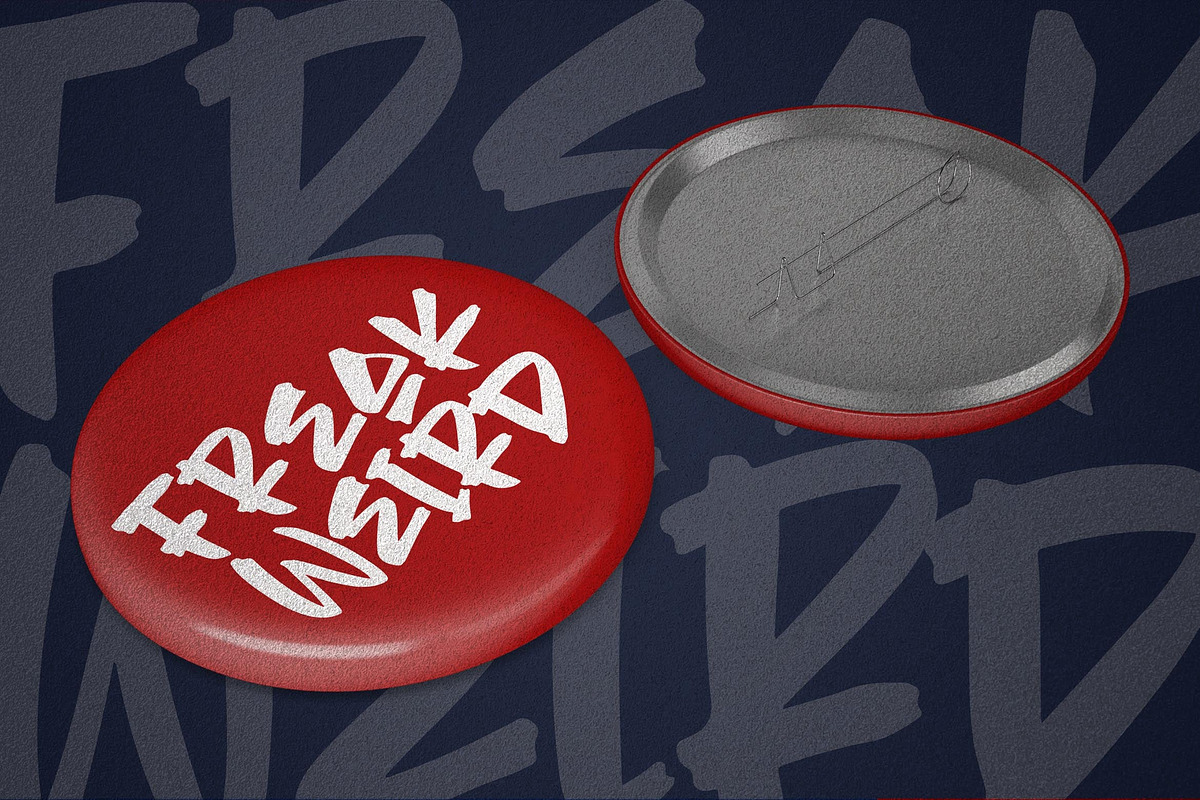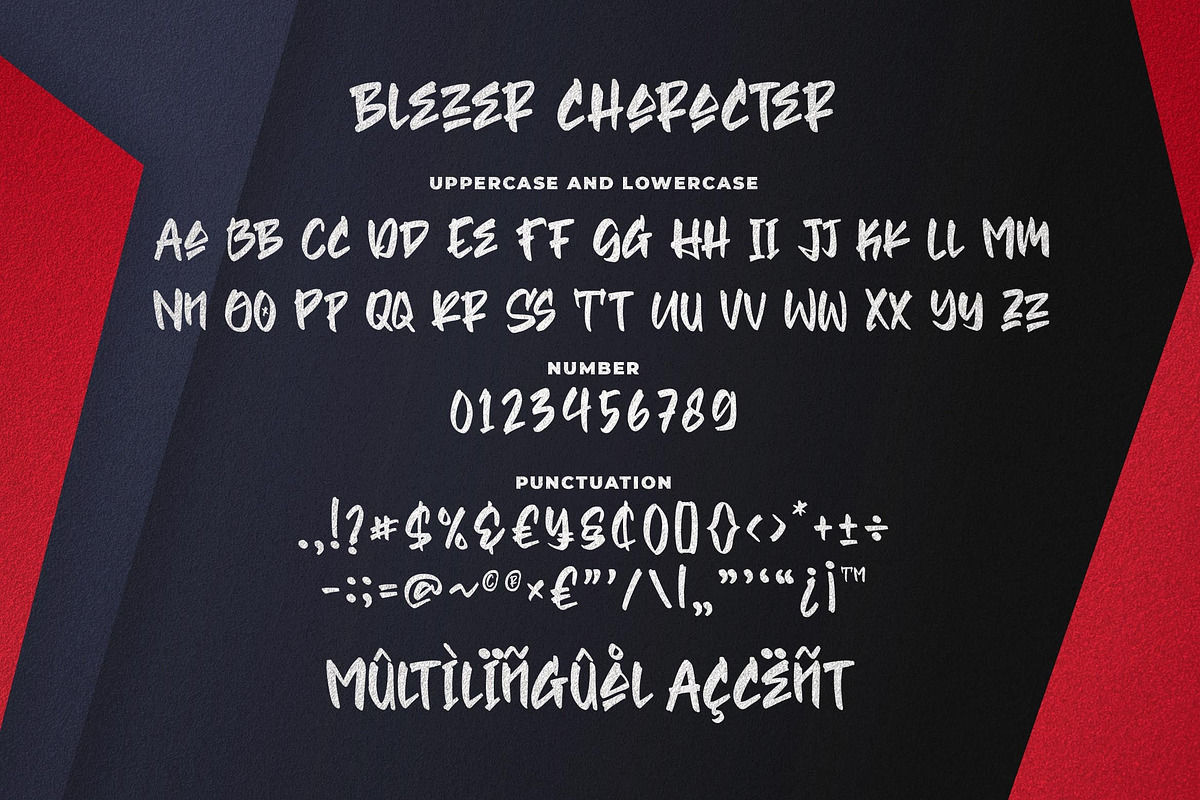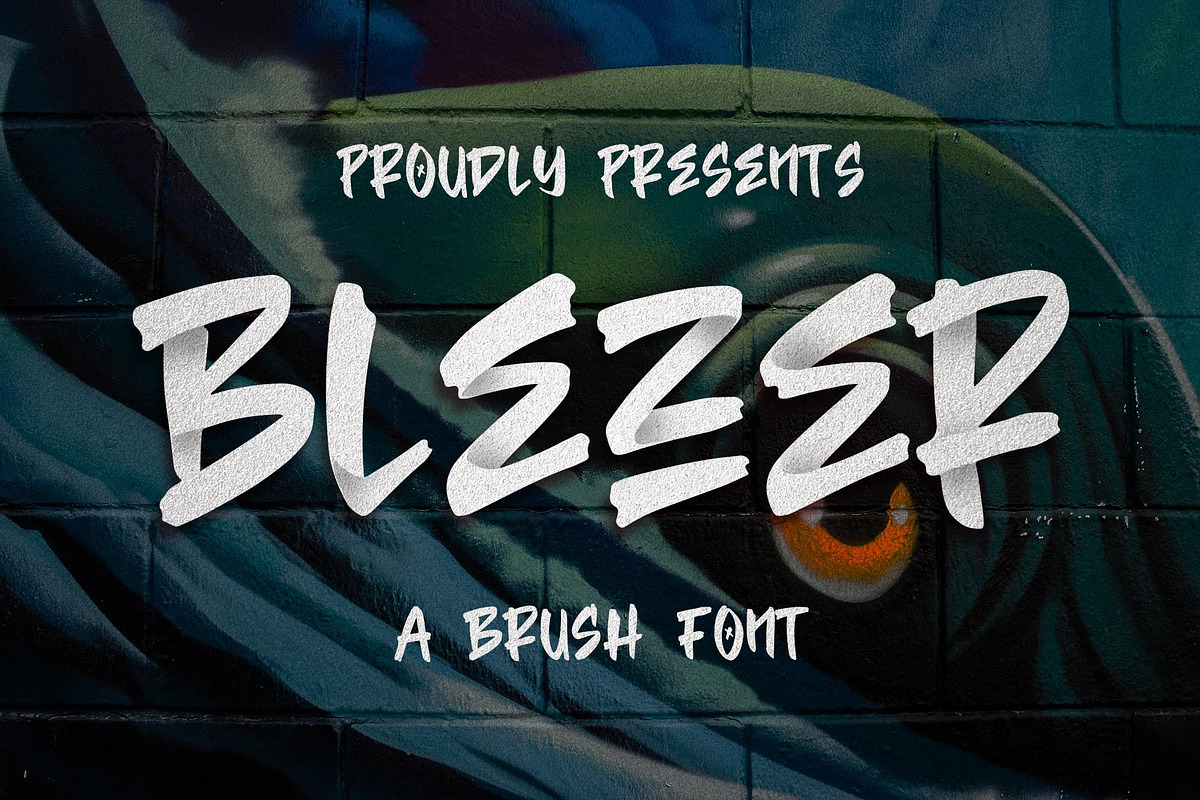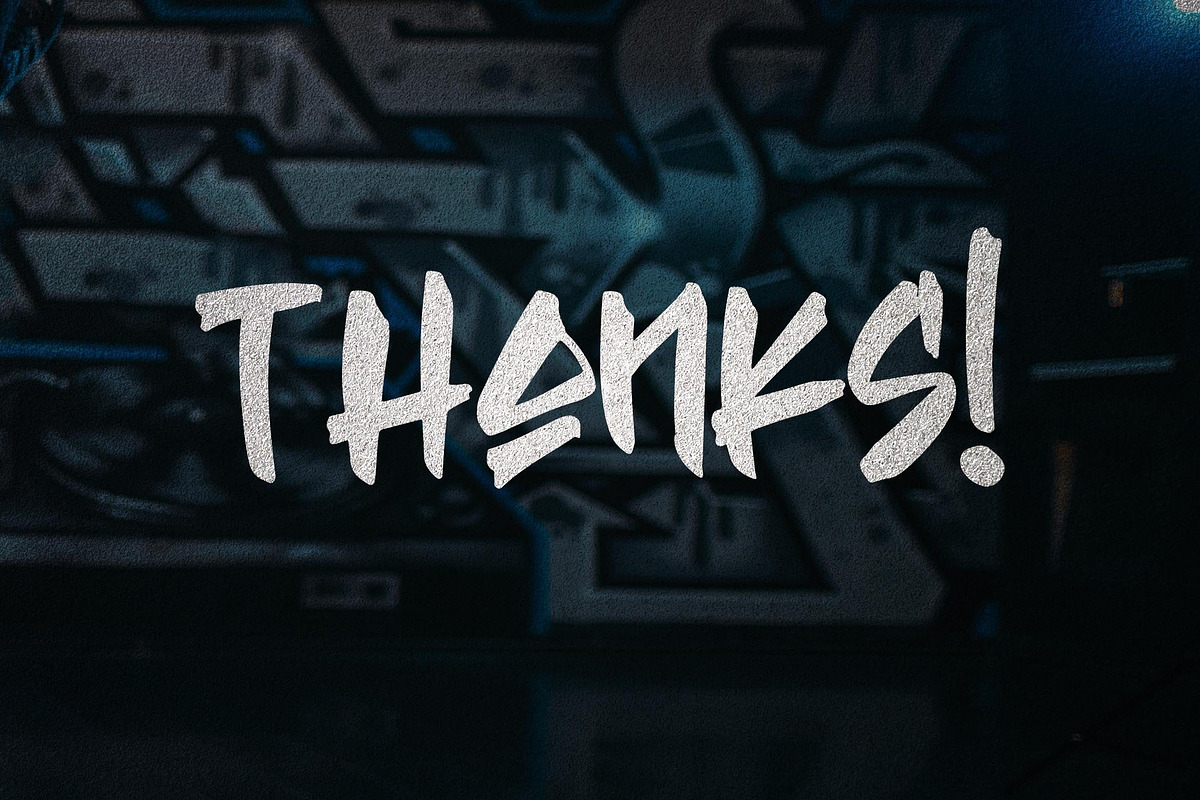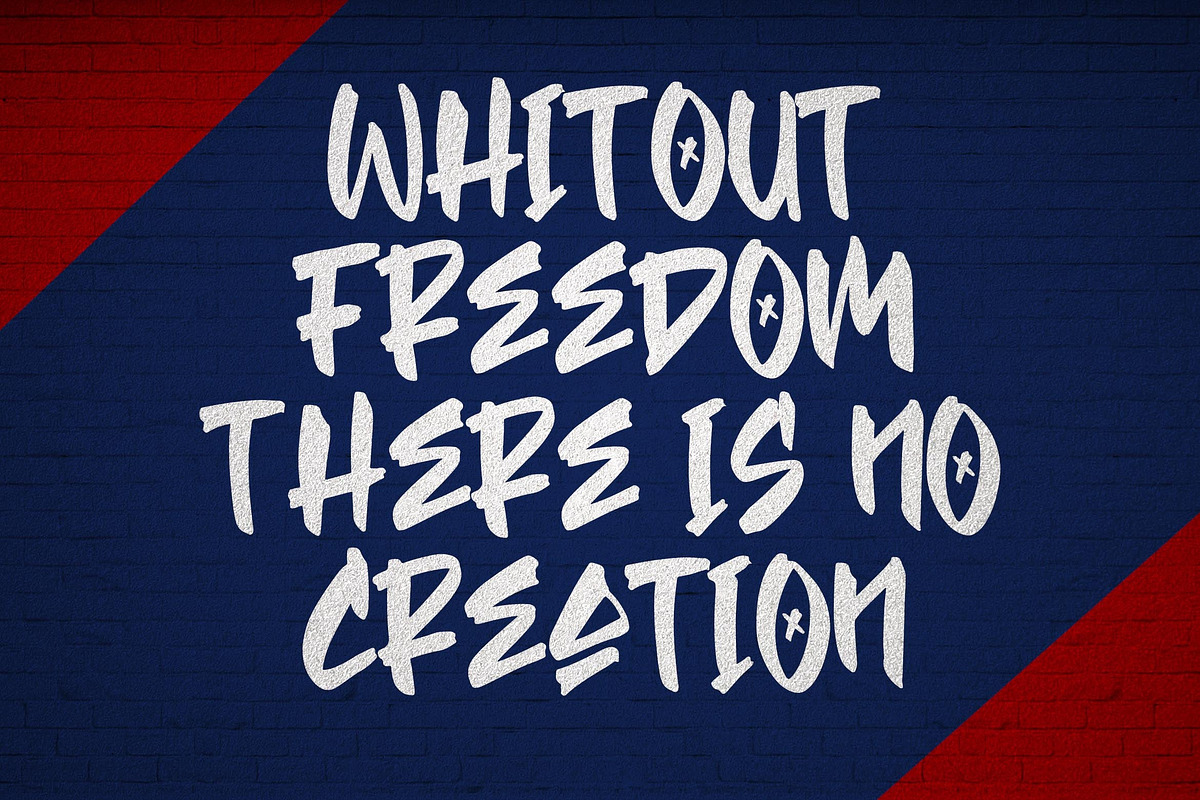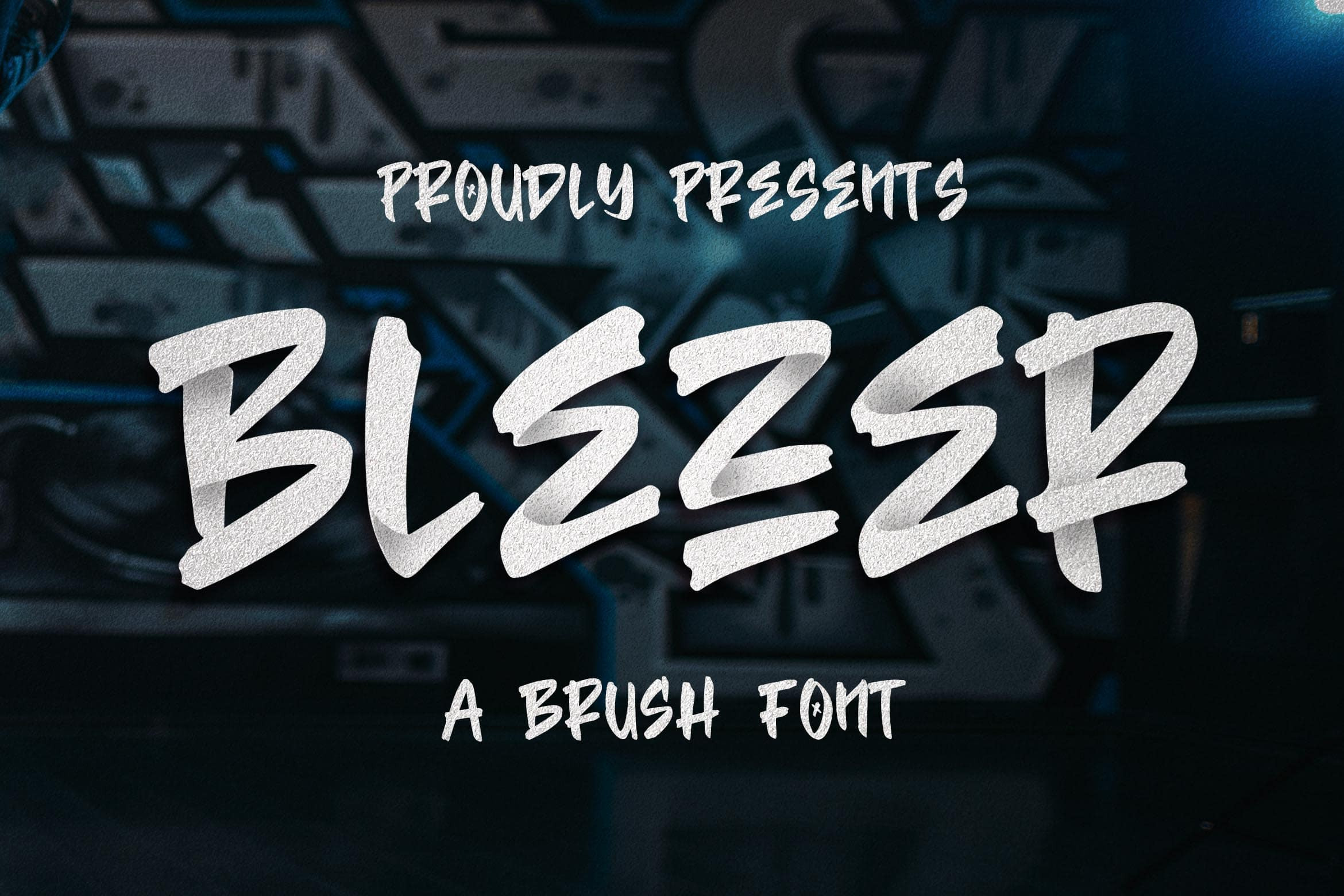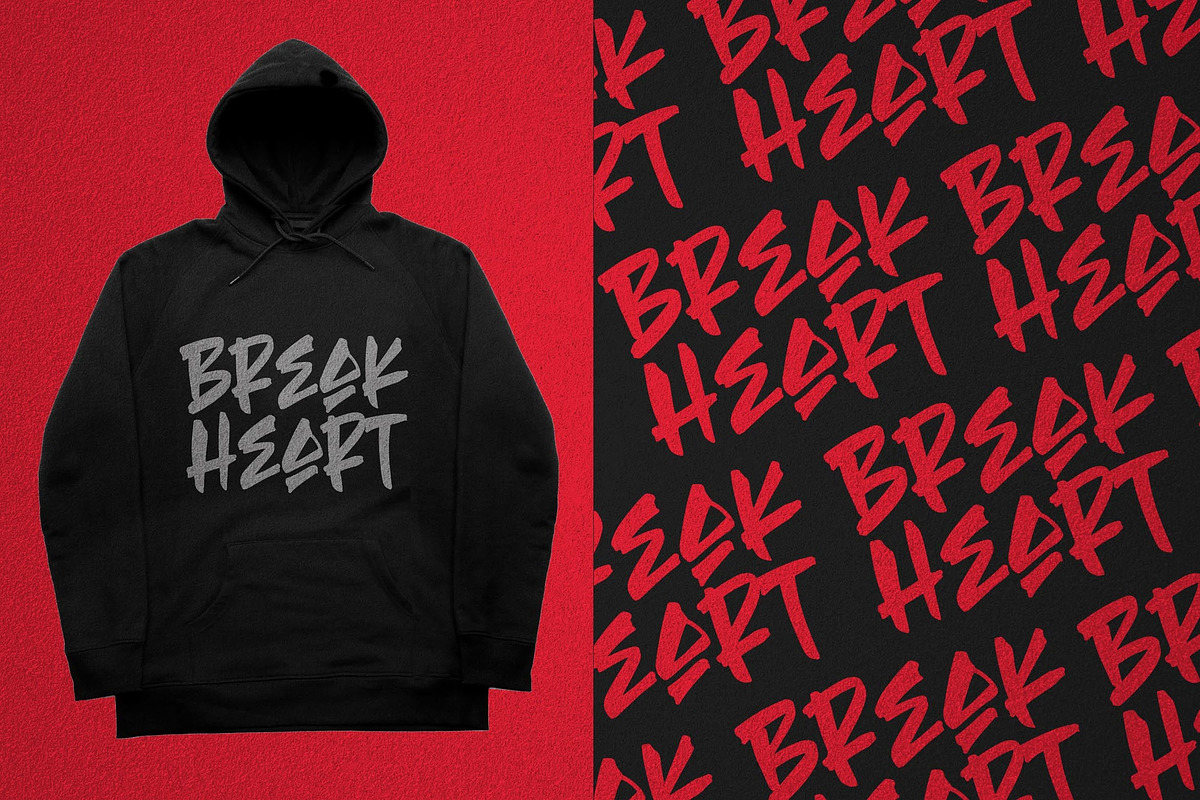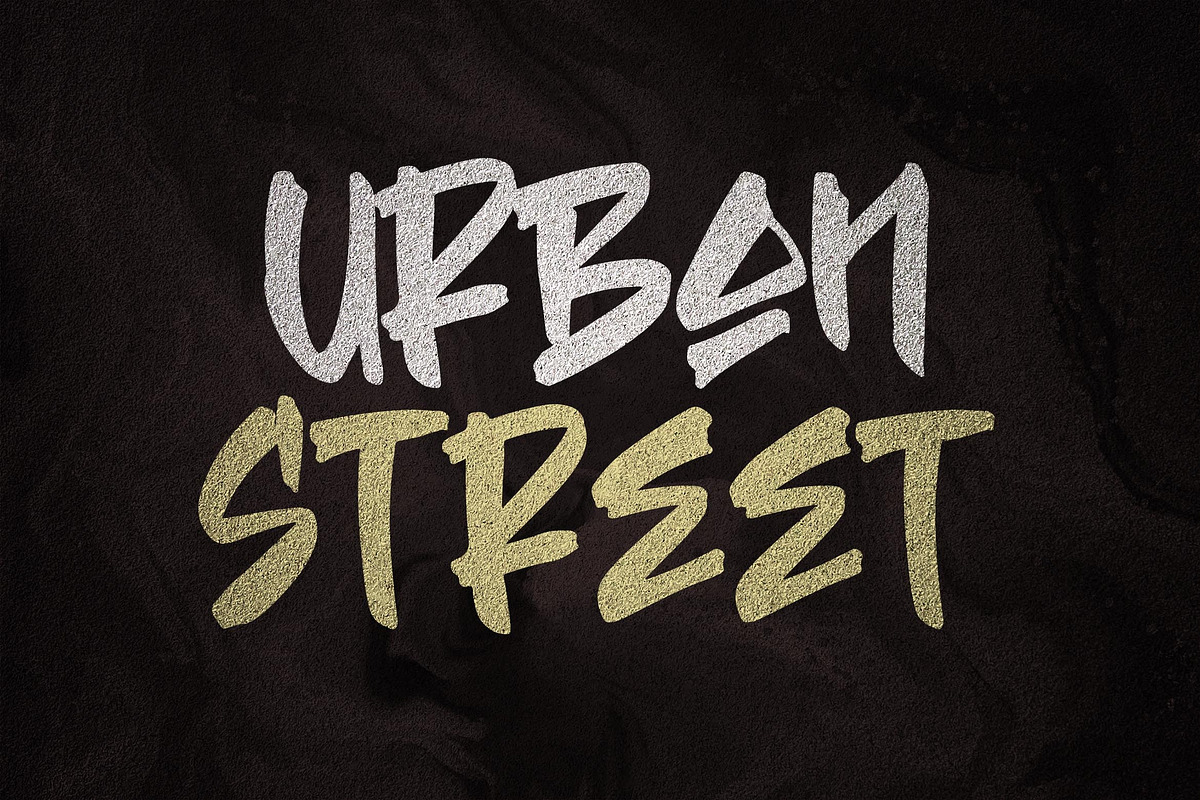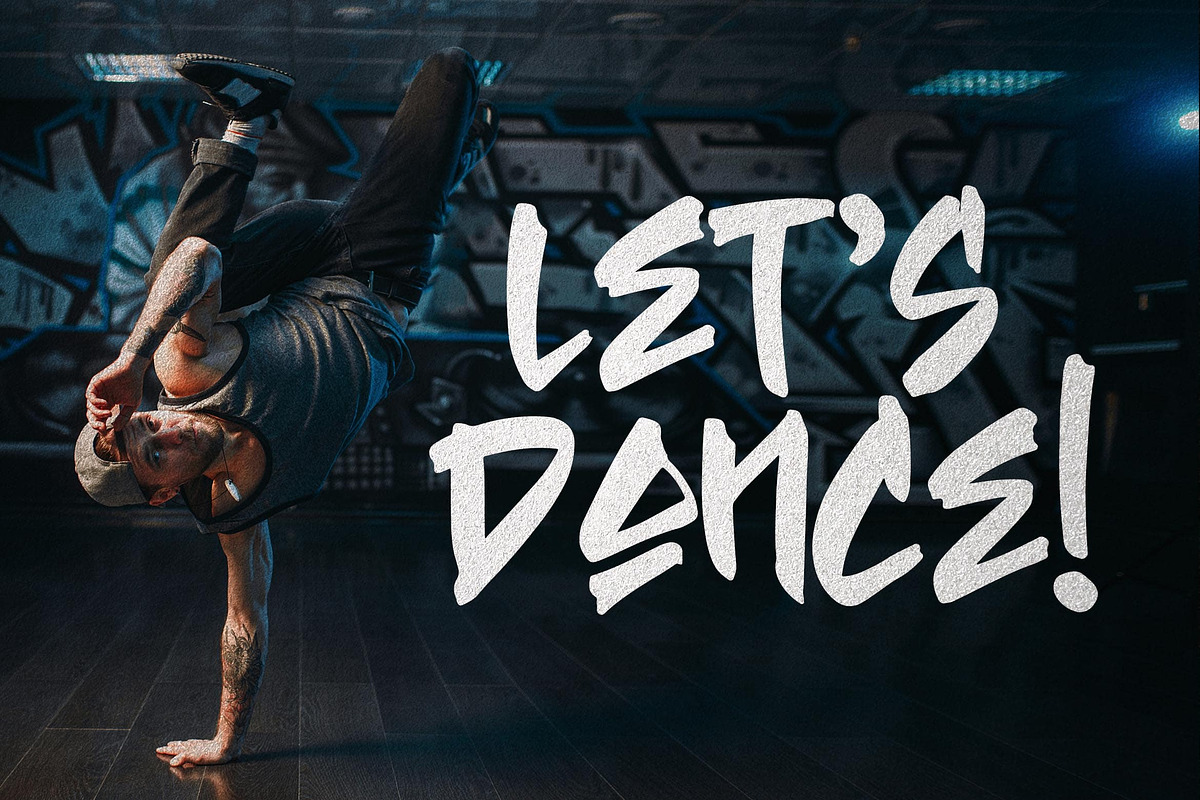
Blezer Clean Brush Font
Introducing of our new product the name is Blezer Brush Font inspired by brush style with a fun theme very good for graffity poster, Hip Hop music, Apparel, etc
MULTILINGUAL ACCENT :